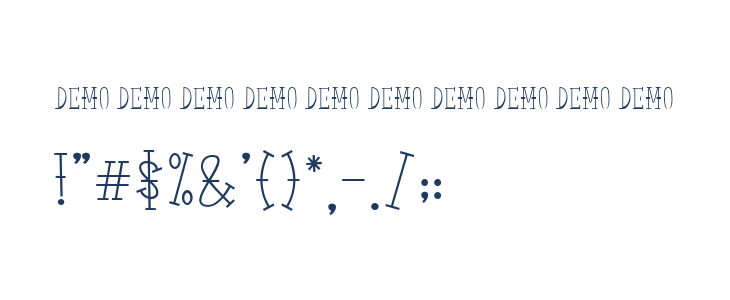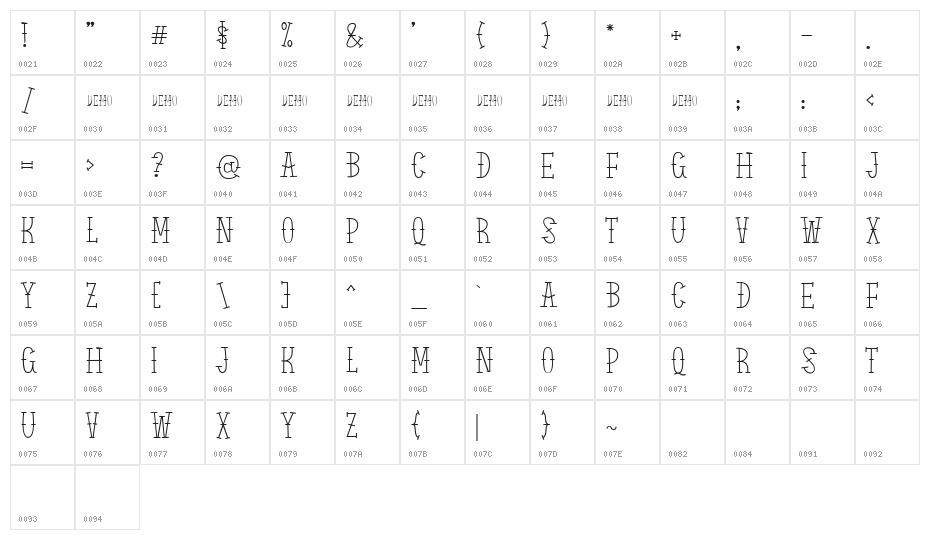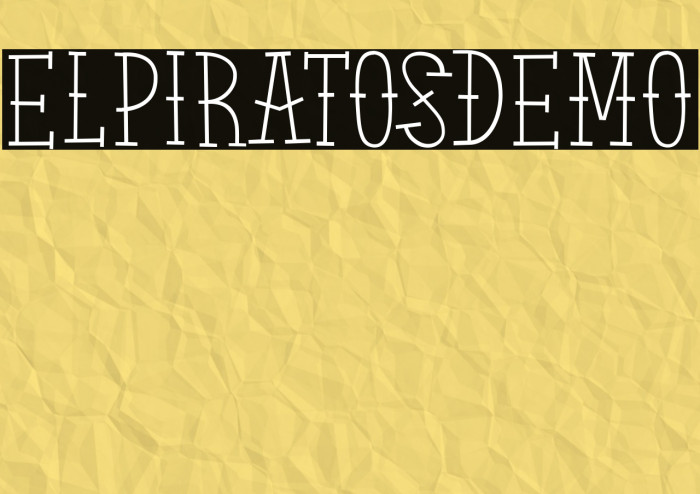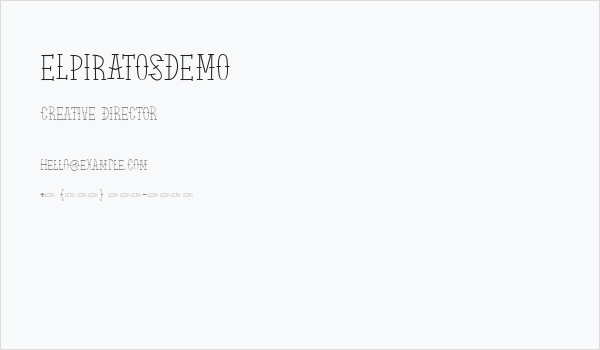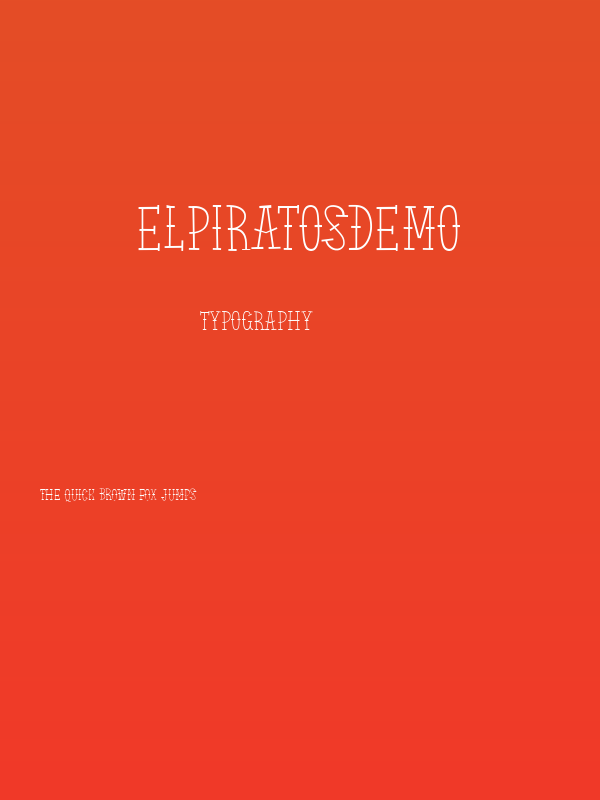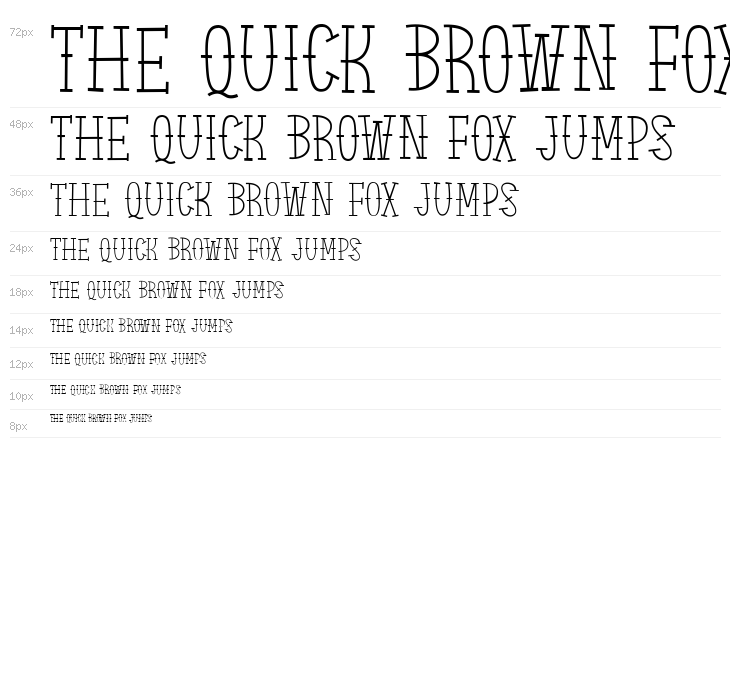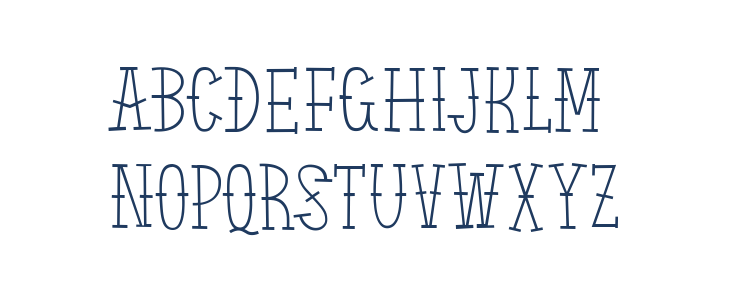
ElPiratosdemo Font
ElPiratosdemo Description
This font features a distinctive and playful design with elongated, narrow characters that have a whimsical flair. The uppercase letters are particularly striking, with unique curves and angles that give them a dynamic appearance. The lowercase letters maintain a consistent style, complementing the uppercase with their own subtle quirks. The numerals and special characters are equally expressive, adding to the font's overall charm. This font is ideal for projects that require a touch of creativity and fun, making it suitable for a variety of design applications.
| Proposed Projects | Ideal for creative projects such as posters, invitations, children's books, and branding that seeks a unique and playful touch. |